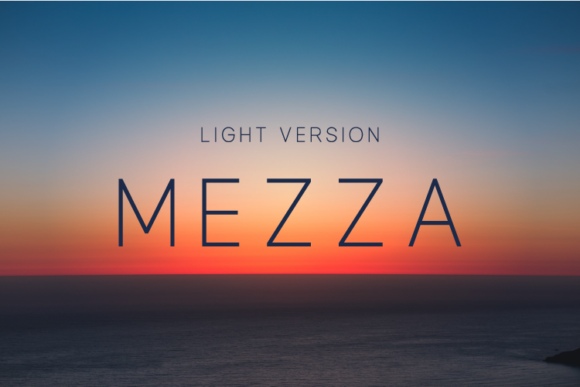
Mezza Light Font
Mezza Light Font: Timeless Charm, Refined Elegance, and Unforgettable Expression
Embark on a typographic journey with Mezza Light Font, where elegance and simplicity meet to create a timeless masterpiece. This meticulously crafted sans serif font exudes an aura of sophistication and charm, instantly captivating your audience with its refined lines and graceful curves.
Mezza Light Font belongs to the esteemed sans serif font family, renowned for its clean, unadorned style that radiates clarity and modernity. Its unwavering commitment to simplicity makes it a versatile choice for a myriad of design endeavors, effortlessly lending its charm to magazine layouts, invitations, headers, and even awe-inspiring large-scale artworks.
Huntype, the visionary font foundry behind Mezza Light Font, has poured their passion and expertise into creating a font that transcends the boundaries of time and trend. Inspired by the enduring allure of classic typography, they have meticulously rendered each letterform with finesse, resulting in a font that is both aesthetically pleasing and highly functional.
Dive into the world of Mezza Light Font and discover a treasure trove of design possibilities. Its all-caps design commands attention, making it an ideal choice for headlines, logos, and other elements that demand an unforgettable presence. Whether you're crafting a minimalist masterpiece or seeking a touch of elegance for your creative projects, Mezza Light Font is your perfect companion.
As you navigate your design journey with Mezza Light Font, you'll find yourself immersed in a world of boundless creativity. Its inherent versatility allows it to seamlessly adapt to a multitude of design styles, from the clean and contemporary to the vintage and nostalgic. Unleash your imagination and let the timeless beauty of Mezza Light Font elevate your designs to new heights.